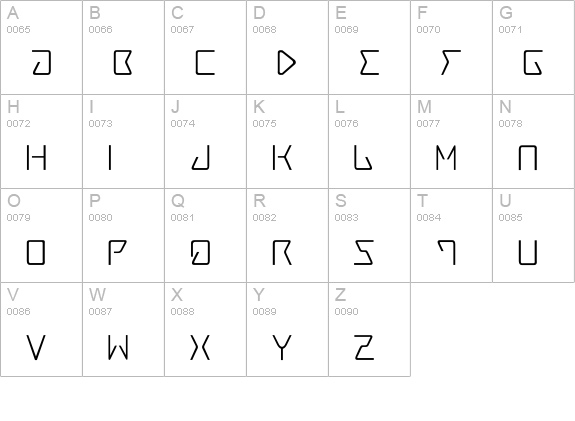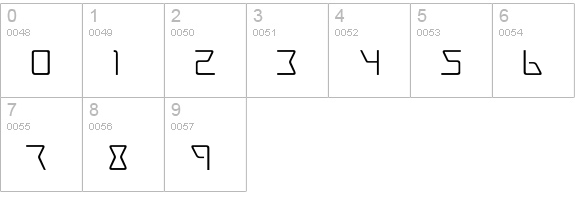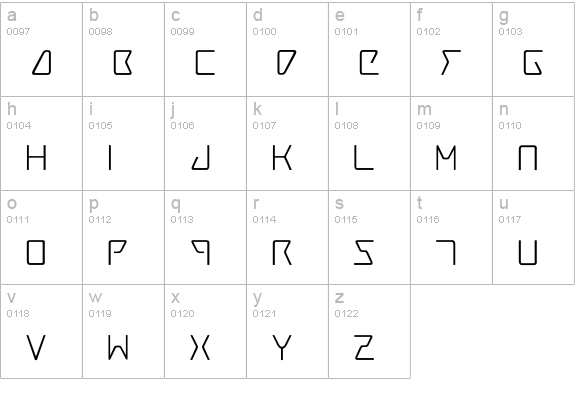
Tracer Font Details
Introducing Tracer font, a captivating and truly unique typeface that will add a touch of elegance and modernity to any design project. With its sleek lines and smooth curves, Tracer font effortlessly combines contemporary aesthetics with a playful twist. Crafted with meticulous attention to detail, this font is sure to draw attention and leave a lasting impression. Tracer font is not only aesthetically pleasing, but it is also incredibly versatile. Whether you're working on a logo, a website, a poster, or any other creative endeavor, Tracer font will undoubtedly elevate your design to new heights. Its clean and legible characters make it suitable for a wide range of applications, ensuring that your message is conveyed with clarity and style. One of the most remarkable aspects of Tracer font is that it is freely available to download at FontsMarket.com. That's right, you can get your hands on this incredible typeface without spending a dime. This generous offer allows designers, artists, and enthusiasts alike to access a high-quality font that would usually come at a premium price. It's an opportunity that should not be missed! So why wait? Embrace the artistic freedom that Tracer font provides and take your designs to the next level. Download this remarkable typeface from FontsMarket.com today and unlock a world of possibilities. Let Tracer font be the secret ingredient that sets your work apart and captivates your audience with its charm and sophistication.